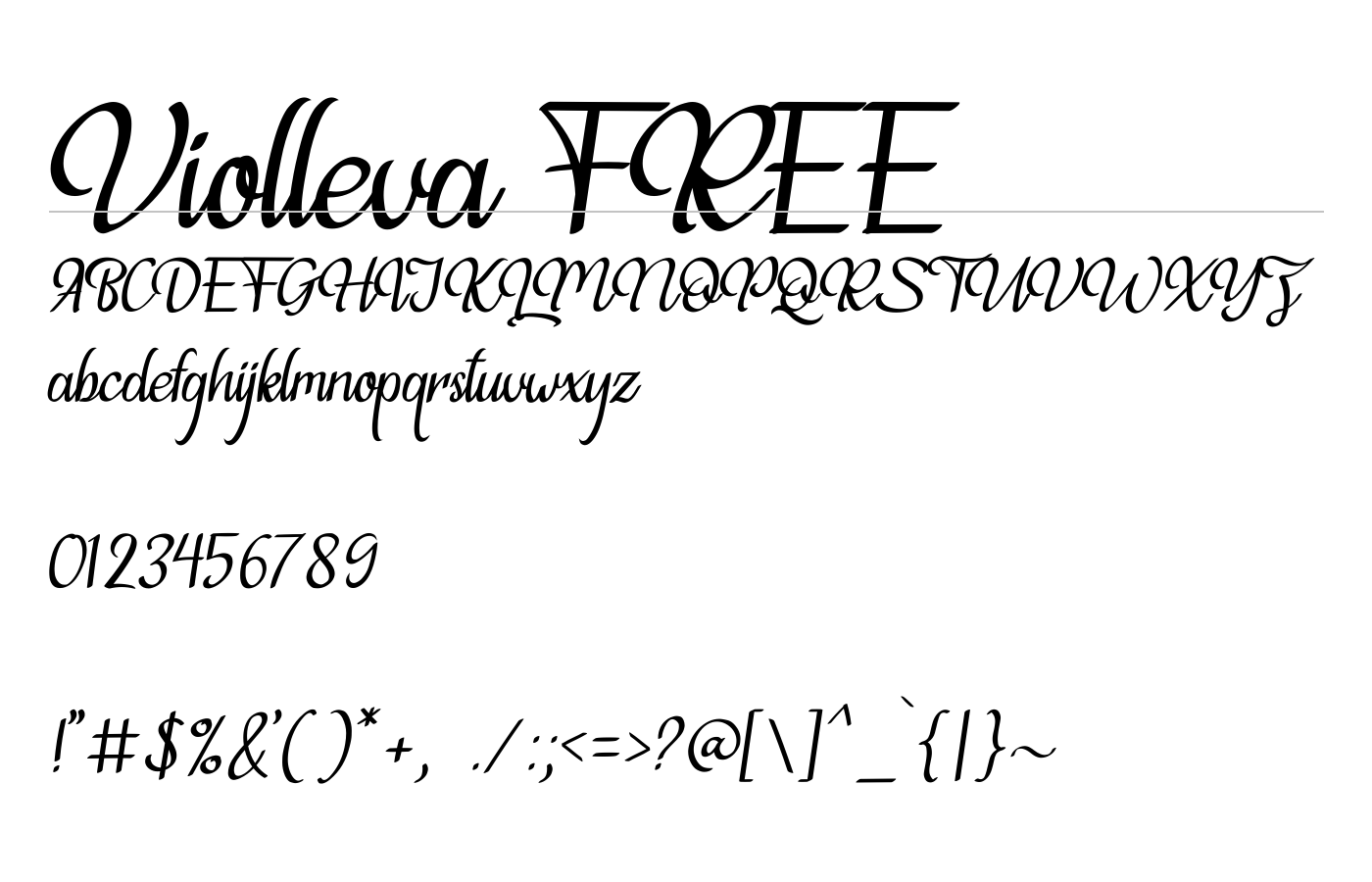
Violleva is an elegant script font featuring a refined, flowing calligraphic style with medium contrast strokes and a graceful slant. Its slender letterforms and delicate curves create a sophisticated, stylish feel, perfect for luxury branding, invitations, and high-end editorial projects. This font works best in decorative headlines and logos where a touch of classic charm and elegance is desired.
Violleva Font
About Violleva Font